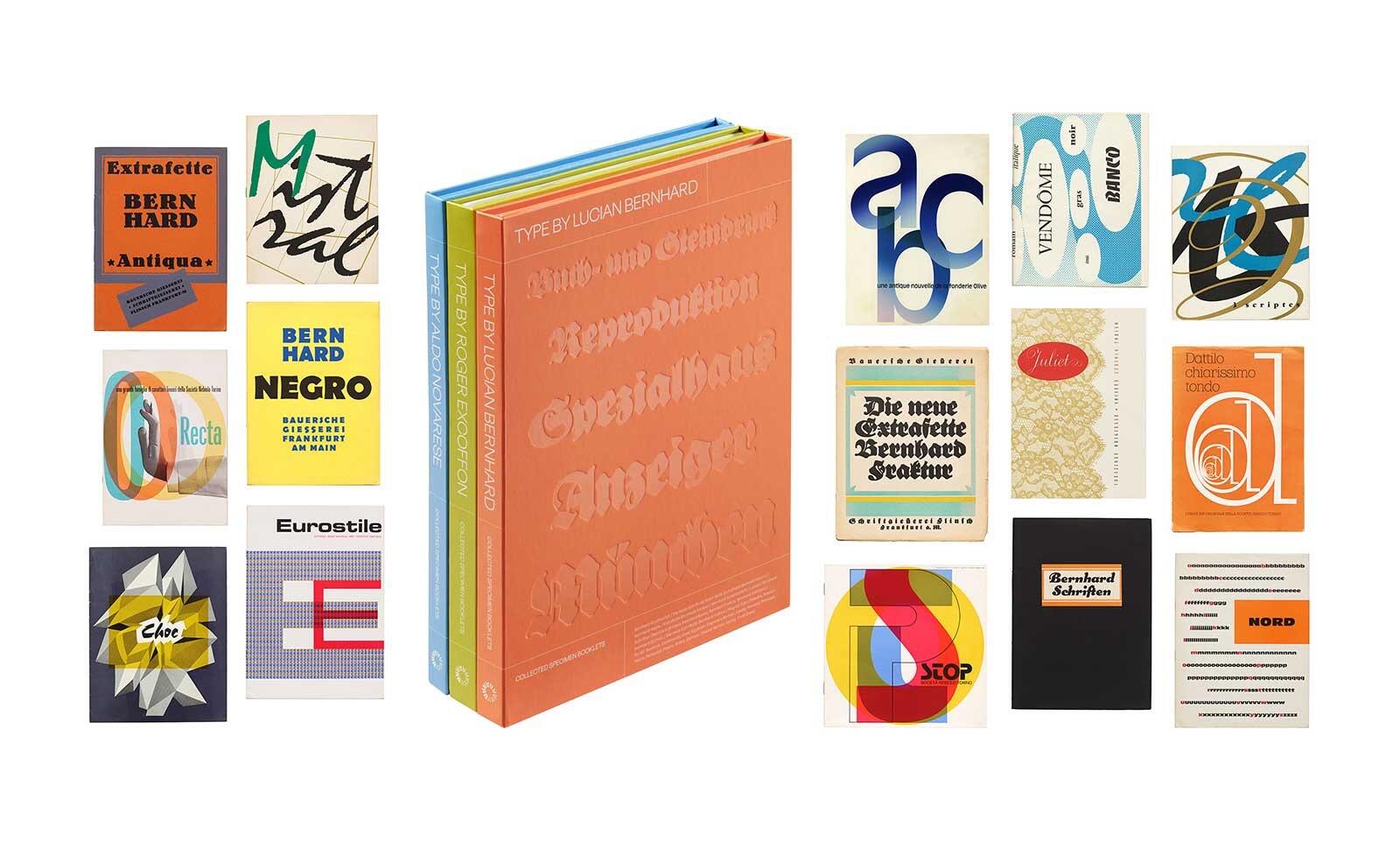
Inside the Type By series: Bernhard, Excoffon, and Novarese
Three volumes of rare specimen facsimiles lift the curtain on twentieth-century type, gathering essential documents of trendsetting faces as they were first meant to be seen.